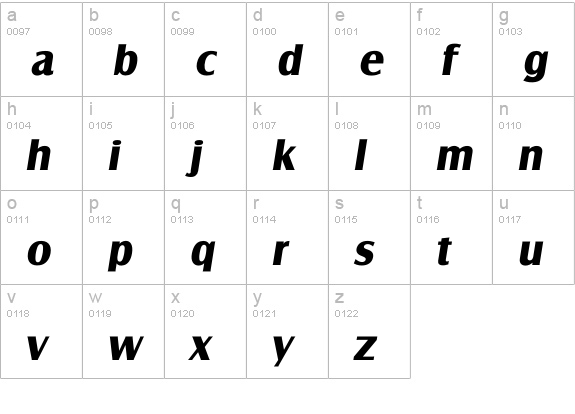
Isalzburg Bold is a strong, high-contrast variant in the Isalzburg typeface family \xE2\x80\x94 well suited to headlines, attention-grabbing titles, and strong calls-to-action.
Introducing Isalzburg Bold, a captivating and versatile font that exudes confidence and sophistication. With its bold letterforms and elegant curves, this typeface commands attention and elevates any design project to new heights. Isalzburg Bold is the perfect choice for those seeking a font that effortlessly combines strength and grace. Its balanced proportions and distinctive details make it ideal for a wide range of applications, from headlines and logos to packaging and branding. This font offers a sense of boldness and power, while still maintaining a touch of refinement and elegance. Its unique personality makes it stand out among other fonts, ensuring your designs make a lasting impression. But what truly sets Isalzburg Bold apart is its availability for free download at FontsMarket.com. Yes, you read that right - this exceptional font can be yours without any cost. FontsMarket.com is proud to offer this remarkable typeface to designers, creatives, and enthusiasts who appreciate the value of quality typography. So, why wait? Experience the beauty and versatility of Isalzburg Bold for yourself. Download it now from FontsMarket.com and unleash your creativity with this remarkable font that combines strength, style, and the freedom of being effortlessly accessible.